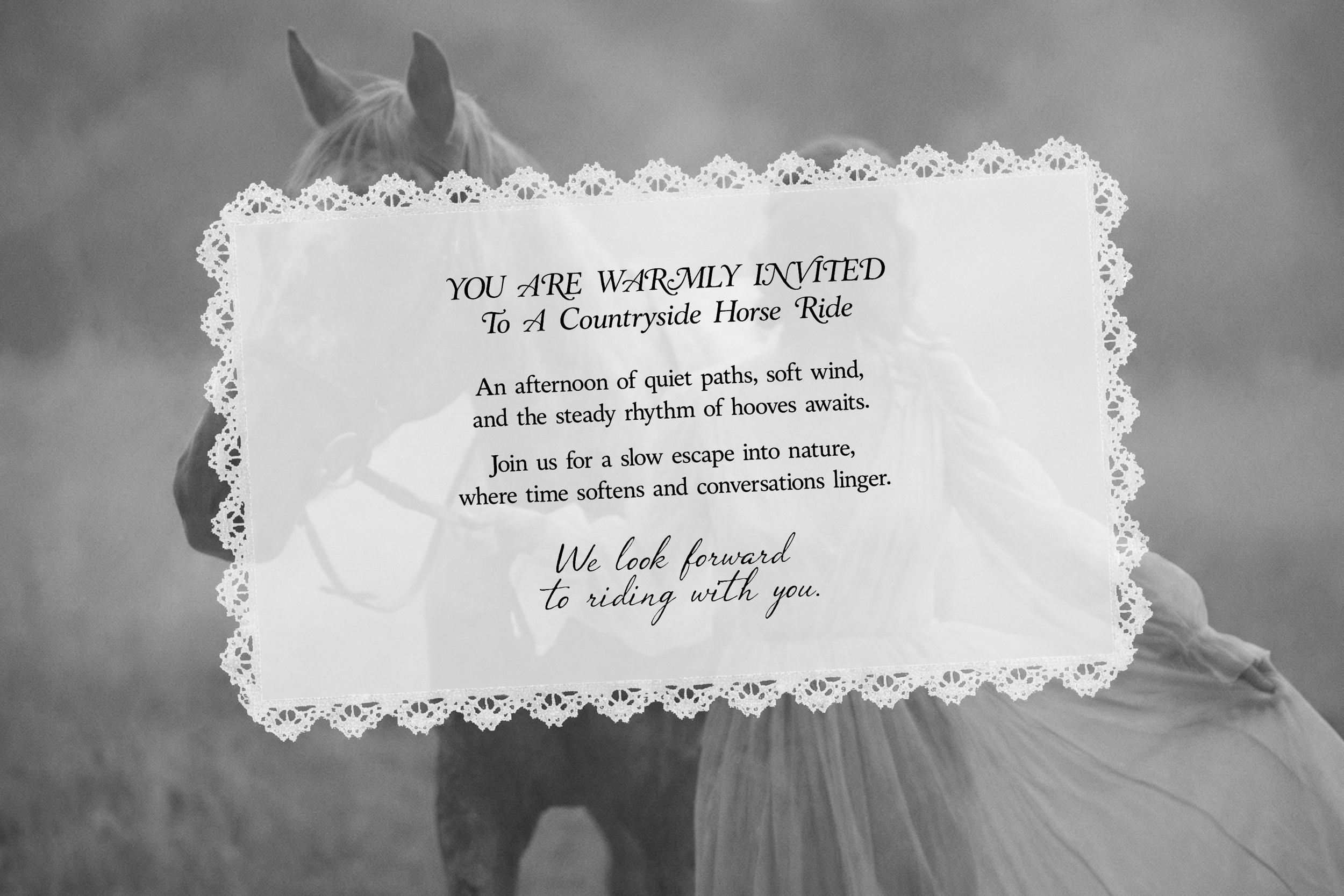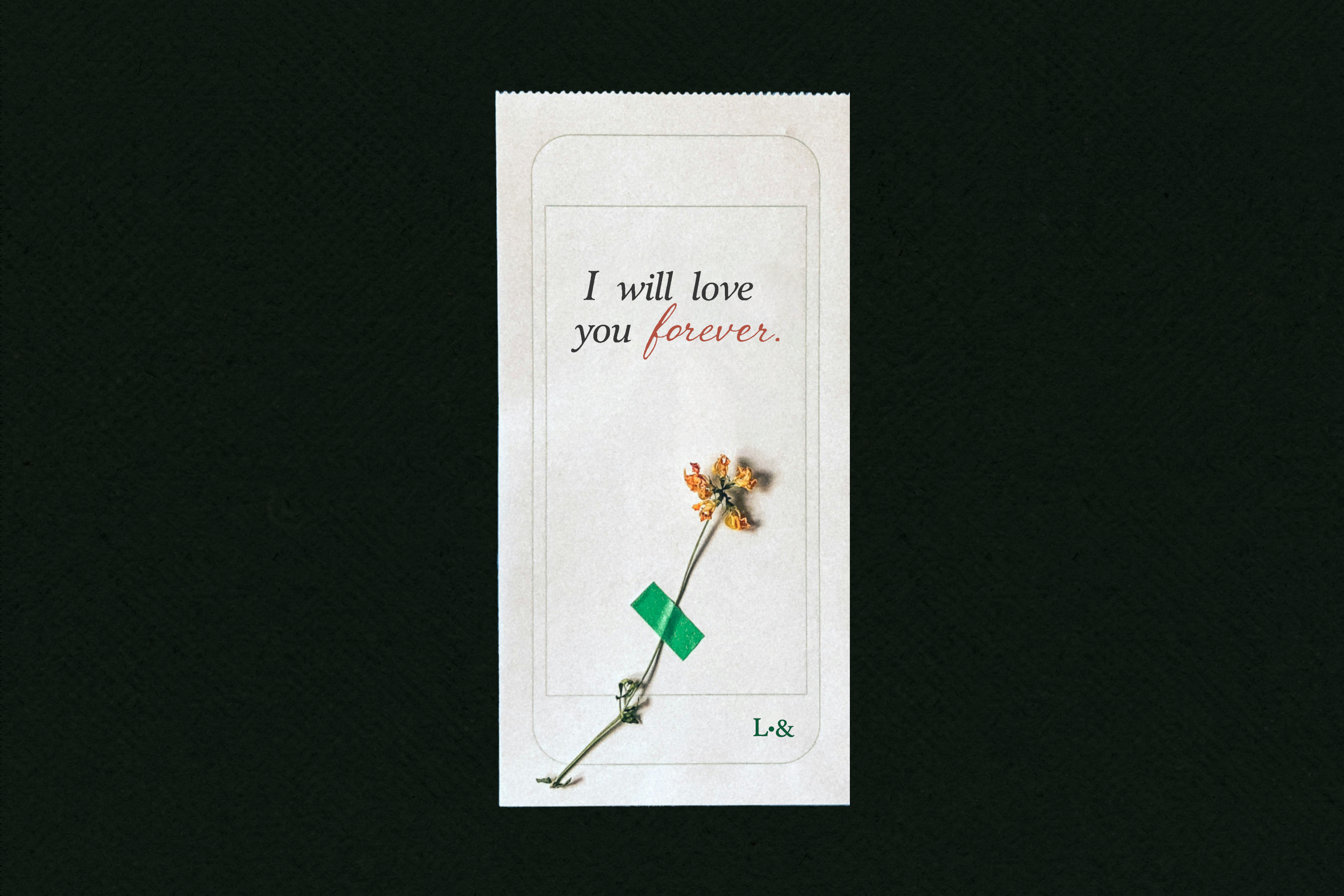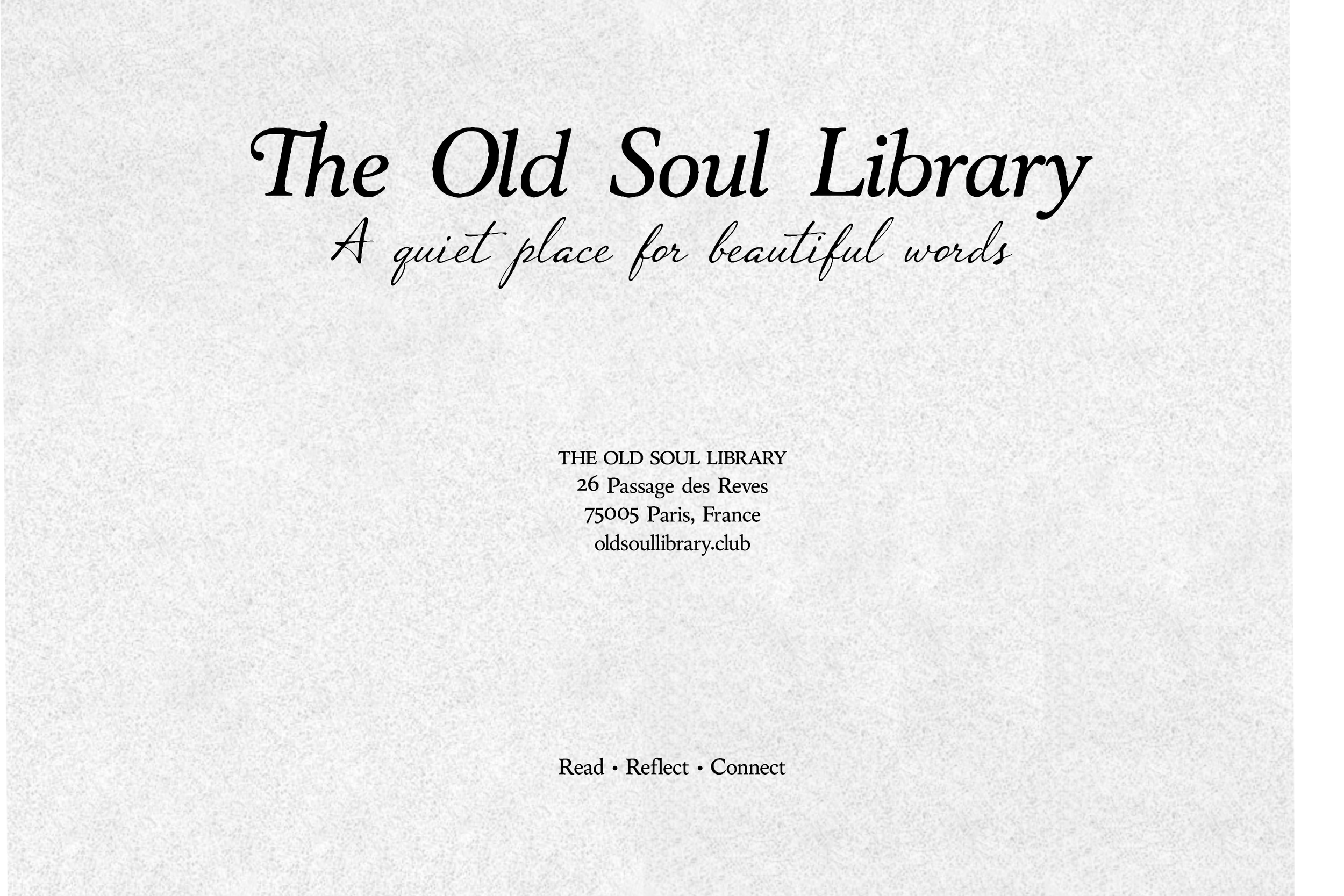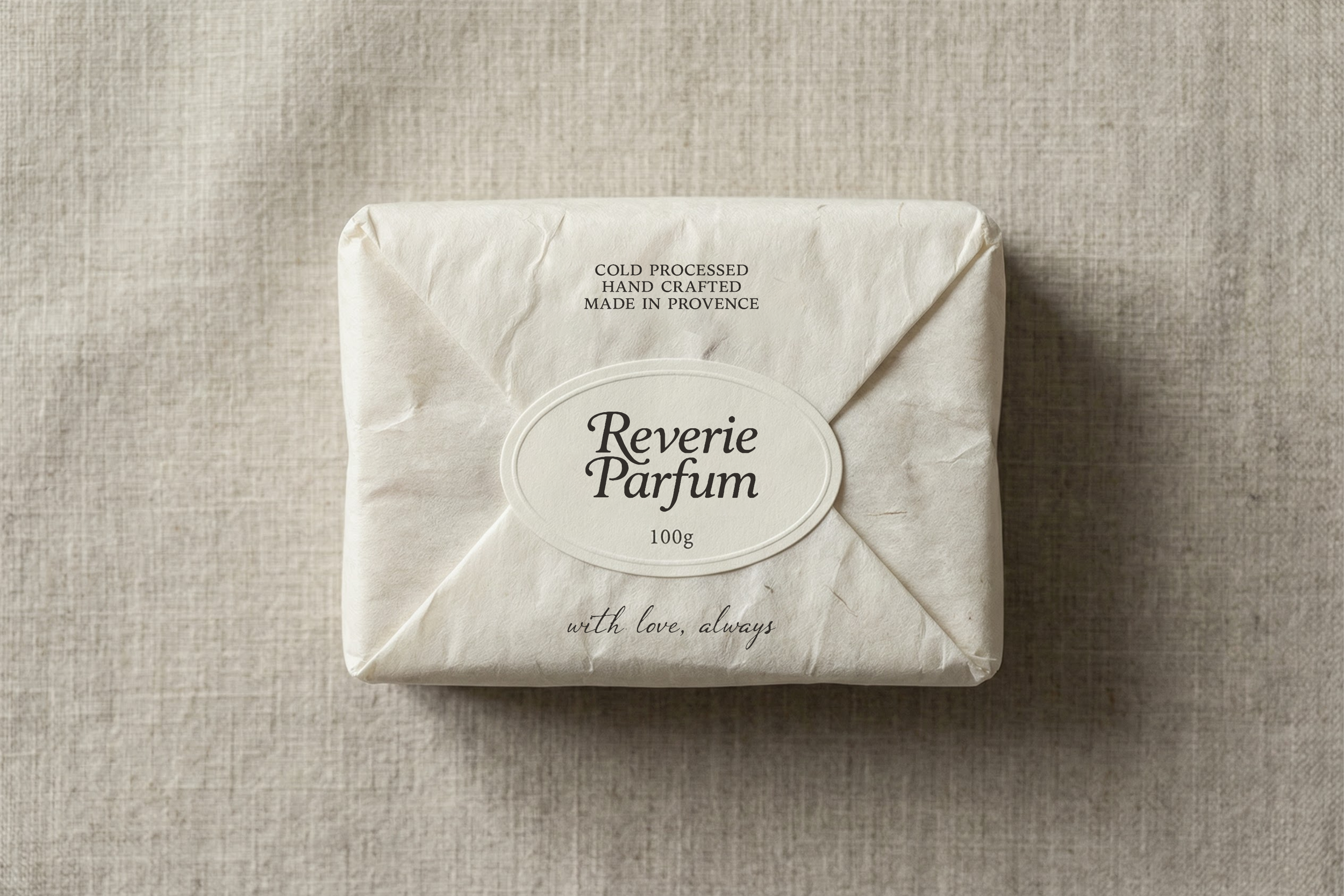
Papeterie Dupont is a romantic, flowing script font designed for couples and designers who want handwritten elegance without the calligraphy class. Perfect for wedding invitations, place cards, love notes, and feminine branding.
Pair it with a clean sans serif for contrast, or use it solo for a fully romantic look.